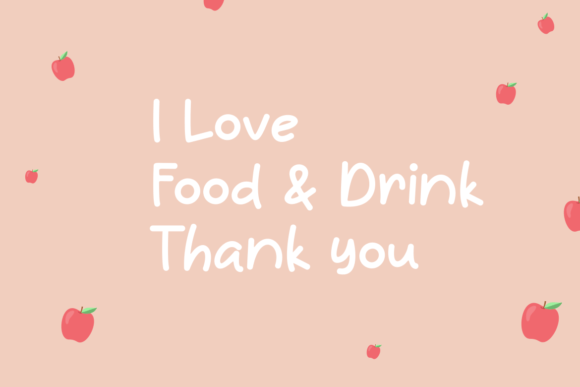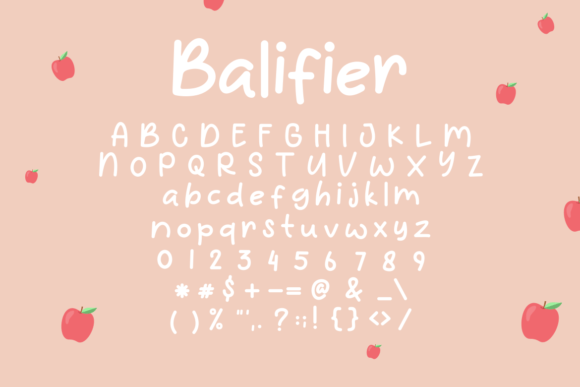
Discover the Perfect Handwritten Companion: Balifier Font
Do you ever find yourself in the middle of a creative project, pouring your heart and soul into a design, and suddenly, the right font just clicks? It’s that moment when everything falls into place, and your vision starts to take shape. For many designers, that moment is a game-changer. It’s the moment when you know you’ve found your perfect partner in crime – and that’s exactly what the Balifier Font is.
This modern and casual handwritten font is designed to bring a touch of personality to your projects, whether it’s a digital design, a presentation, or a handmade card. With its unique charm and versatility, the Balifier Font has the potential to become your go-to font for any occasion. For designers, this font is a valuable asset, offering endless possibilities for creative expression and making it a must-have in their toolkit.
Key Features of Balifier Font
- Unique Characteristics: The font features a unique blend of modern and classic elements, making it perfect for creating visually appealing and sophisticated designs.
Review of Balifier Font
Overall, I’m quite impressed with the Balifier Font. It’s a beautiful, modern sans-serif font that’s perfect for a variety of projects. Here are some things that I think work well:
- ✨ Unique character set: The Balifier Font has a unique character set that’s a mix of classic sans-serif and modern elements. It’s great for designers who want to add a touch of personality to their work.
- ✨ High-quality vector graphics: The font’s vector graphics are crisp and clean, making it perfect for print and digital use.
- ✨ Excellent legibility: The Balifier Font is highly legible, even at small font sizes, which makes it perfect for body text and headings.
However, there are some limitations to the font that I think are worth mentioning:
- ⚠️ Limited language support: The Balifier Font doesn’t support as many languages as some other fonts, which might be a limitation for designers who need to create content in multiple languages.
- ⚠️ Not ideal for display use: While the Balifier Font is great for body text and headings, it’s not the best choice for display use, such as titles and headings in a bold or large font size.
Overall, I think the Balifier Font is a great choice for designers who want a modern, versatile font that’s perfect for a variety of projects. With its unique character set, high-quality vector graphics, and excellent legibility, it’s definitely worth considering for your next design project.
Tips for Getting the Most Out of Balifier Font
Here are some tips for getting the most out of Balifier Font:
- Use Balifier Font for titles and headings to add a touch of sophistication.
- Combine Balifier Font with other fonts for a unique and eclectic look.
Here are some common use cases for Balifier Font:
- Book covers and publishing